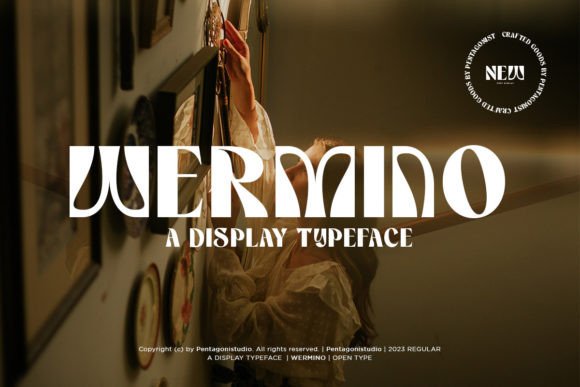
Introducing Wermino Font, an Opulent Display Font for Unforgettable Designs
Journey into the world of Wermino, a display font that exudes exclusivity and sophistication like no other. This meticulously crafted font, brought to you by Pentagonistudio, is a testament to the power of typography, designed to elevate your projects to new heights of luxury and elegance.
With its intricate and captivating letterforms, Wermino commands attention, making it the perfect choice for luxury branding, high-end editorial design, and any project that demands a distinct and unforgettable presence. Step into the realm of exclusivity and let Wermino guide you towards design excellence.
Capture the Essence of Luxury:
Immerse yourself in the world of luxury with Wermino's captivating forms. This font is a symphony of elegance, perfectly suited for high-end branding and marketing materials. Create logos that exude prestige, business cards that radiate professionalism, and marketing campaigns that leave a lasting impression.
Elevate Your Editorial Designs:
Take your editorial designs to the next level with Wermino's refined aesthetics. Its intricate details and flowing letterforms lend a touch of sophistication to any written content, whether it's a magazine spread, a book cover, or an online article. Captivate your readers and leave them spellbound with every word.
Make a Bold Statement:
With Wermino, you have the power to make a bold statement that sets you apart from the ordinary. Its unique and distinctive characters demand attention, ensuring that your designs stand out in a sea of mediocrity. Create posters that command attention, invitations that intrigue, and social media graphics that ignite conversations.
Experience the Wermino Difference:
Wermino is not just a font; it's an experience. A gateway to a world of design possibilities where elegance and exclusivity reign supreme. Embrace the Wermino difference and unlock the true potential of your creative vision.